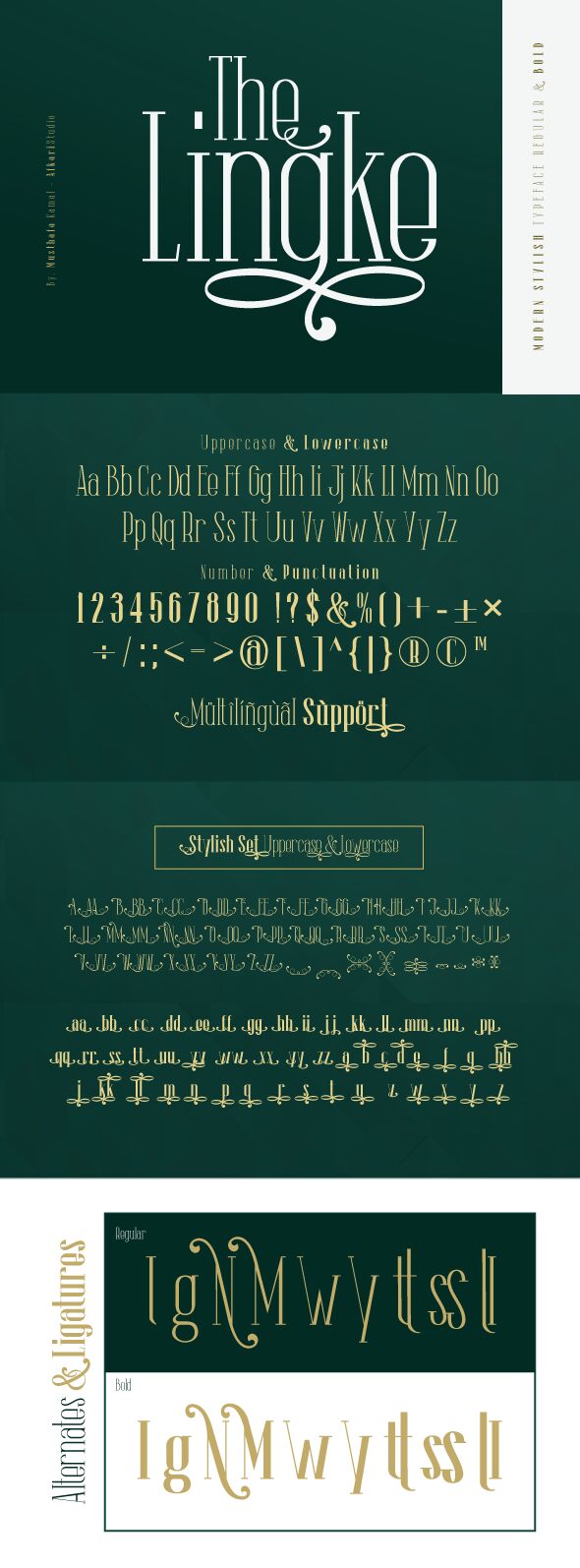
The Lingke font, designed by Afkari Studio's Musthafa Kamal Emje, is a stunning serif typeface that boasts a light weight and extra-condensed width. Its elegant curves and refined proportions make it an excellent choice for projects that require a touch of sophistication, such as high-end fashion magazines or luxury branding initiatives. The Lingke's legibility and readability are top-notch, making it an ideal pick for long-form editorial pieces or academic journals. With its unique blend of classic style and contemporary flair, this font is perfect for any project that demands both professionalism and creativity.